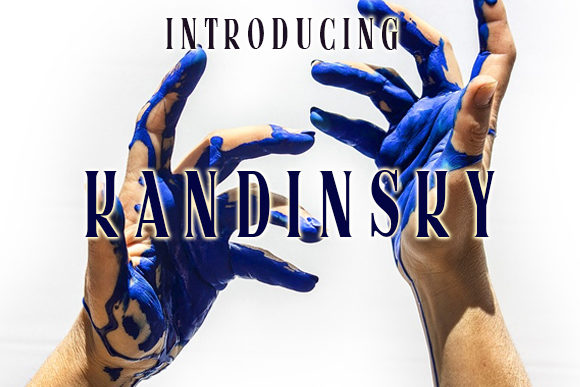
Kandinsky Font
Step into a world of timeless elegance and sophistication with the Kandinsky Font, a masterpiece that exudes charm and individuality. This serif font, meticulously crafted by the skilled hands of vladimirnikolic, is a visual treat that will elevate your designs to new heights.
Immerse yourself in the beauty of its classic serifs, each stroke brimming with history and artistry. Bask in the allure of its graceful curves and the delicate balance of its proportions. Kandinsky is not just a font; it's an experience that ignites creativity and sparks imagination.
Unleash your inner artist and let Kandinsky be your muse. Whether you're designing posters, flyers, banners, or any printed material, this font will add a touch of timeless sophistication that will captivate your audience. Its versatile nature makes it the perfect choice for a wide range of projects, ensuring that your designs stand out from the crowd.
With Kandinsky by your side, you'll embark on a creative journey, transforming ordinary words into captivating expressions. Its timeless appeal will add a touch of elegance to your posters, flyers, banners, and other marketing materials. Prepare to witness the power of Kandinsky as it elevates your designs to new heights of visual excellence.
Don't settle for ordinary fonts that blend into the background. Embrace the allure of Kandinsky and watch as your designs blossom into works of art. Let your creativity soar as you craft captivating posters, flyers, and banners that resonate with your audience.
Kandinsky is more than just a font; it's an investment in your creative potential. Its timeless beauty and versatility will serve you well for years to come, inspiring you to create designs that leave a lasting impression.